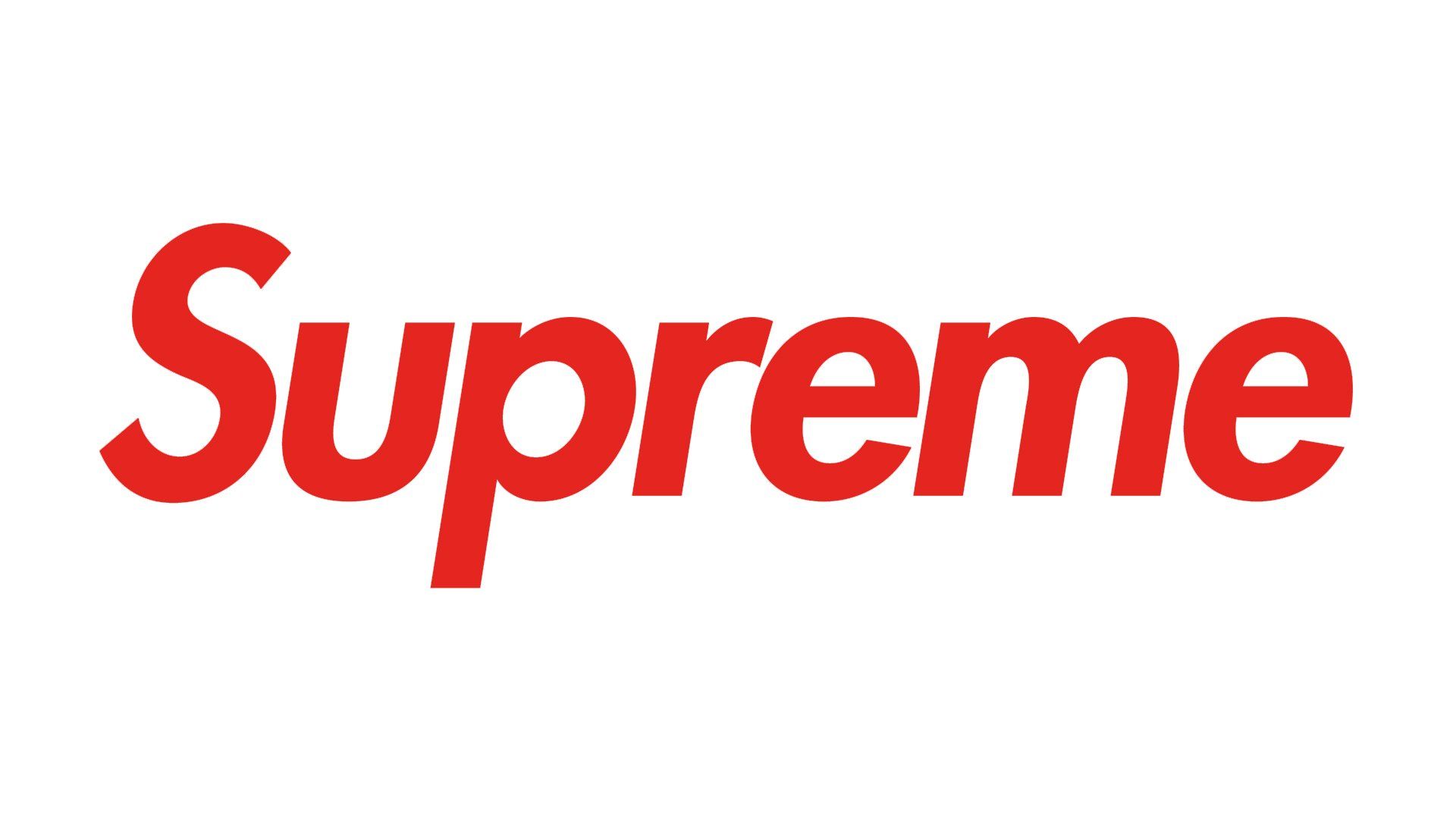
All The Letters Including Has Their Own Versatility And Proper Spacing In Between Each Other While Writing.
It is based on geometric shapes, especially the circle, similar in spirit to the bauhaus design style of the period. It is really inexperienced and relaxing to the eyes for. Download supreme logo svg svgbomb.
You Can Use Century Gothic Bold Italic And Font Size 80 To Get The Exact Copy Of The Supreme Logo.
You can download the images and share on your social media profiles. It is grotesque inspired by simple geometric shapes, including circles and rectangles. The text lettering employing for the supreme logo is futura bold italic font.